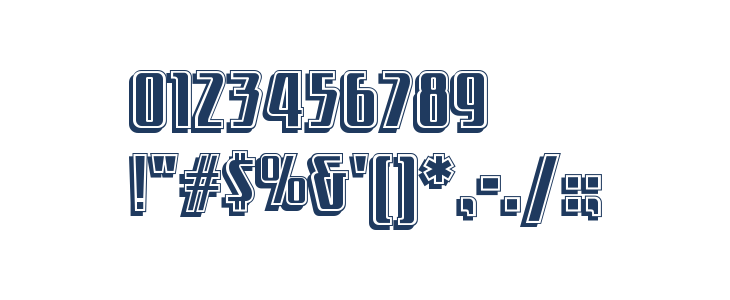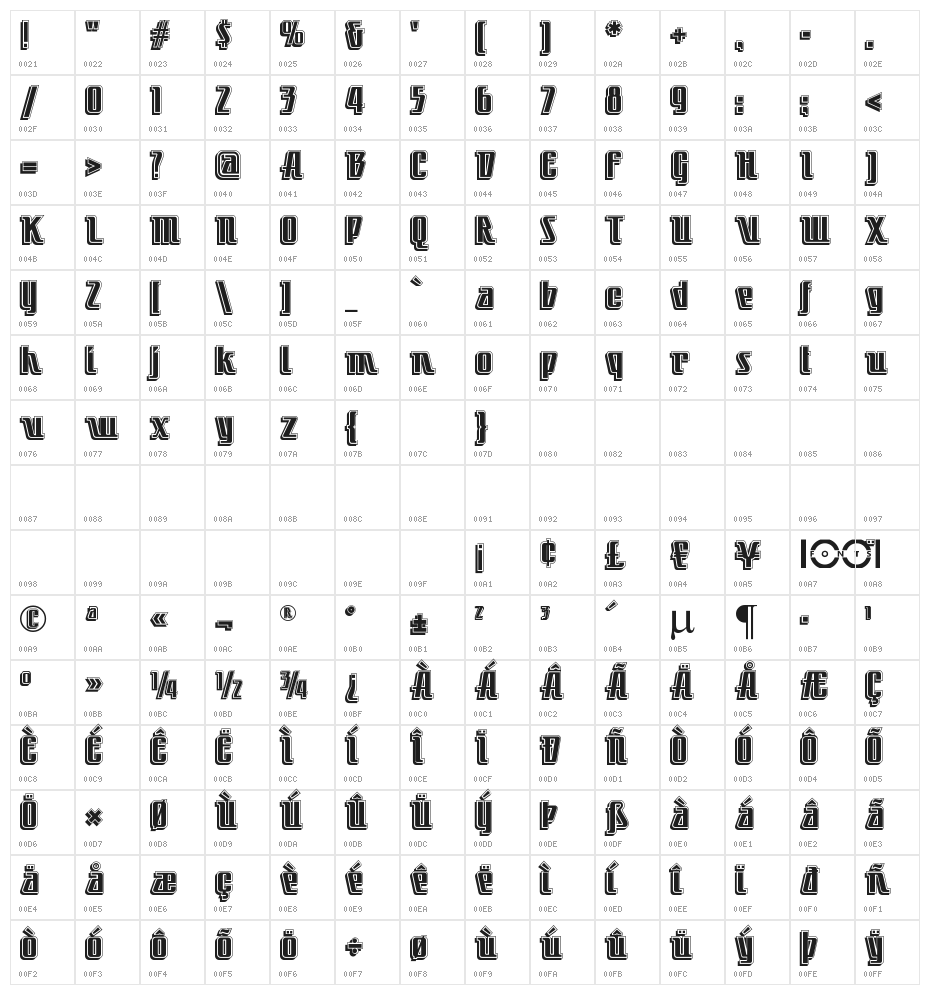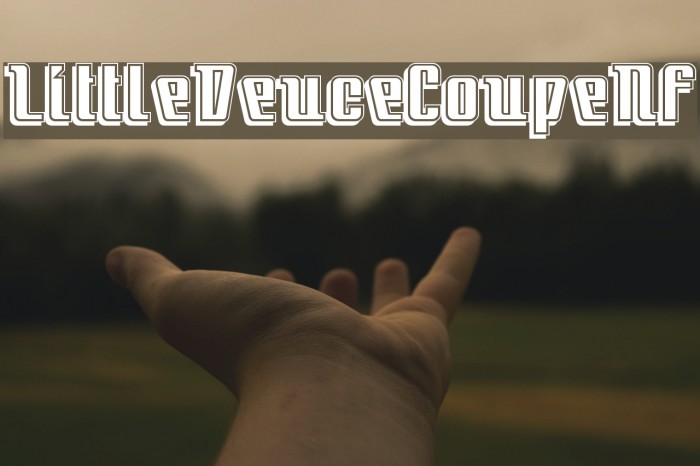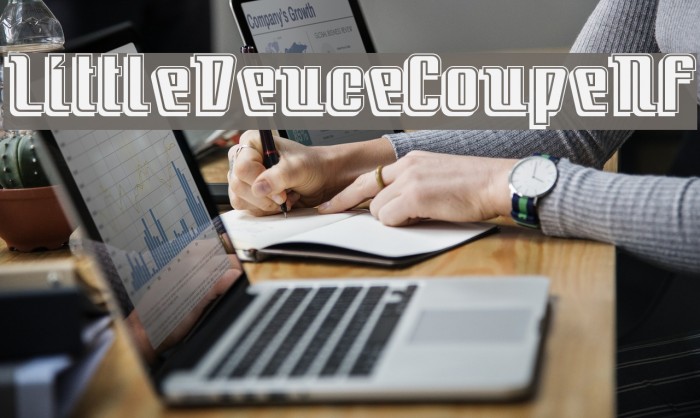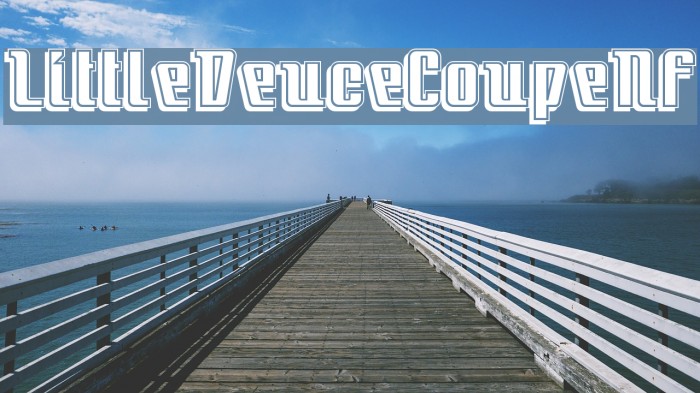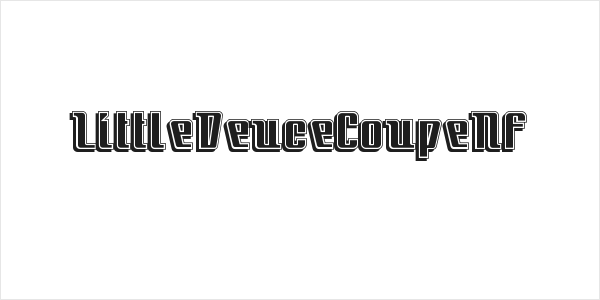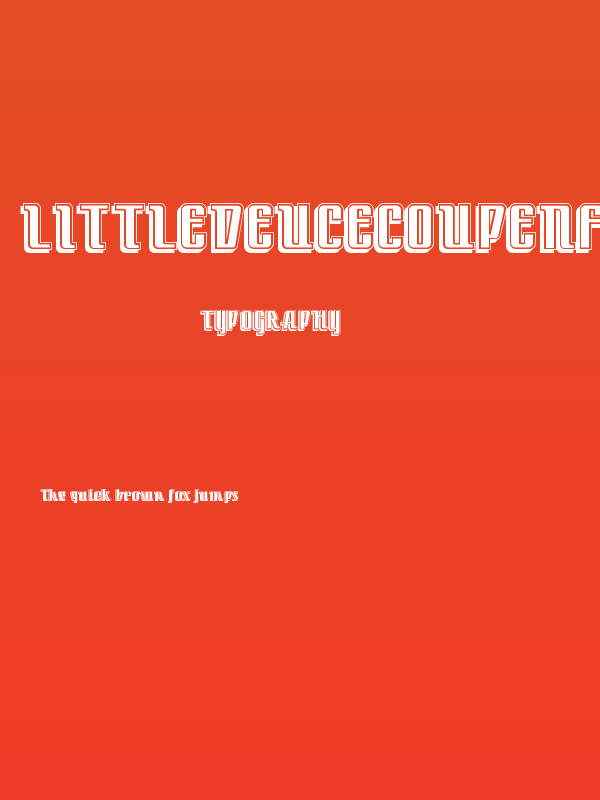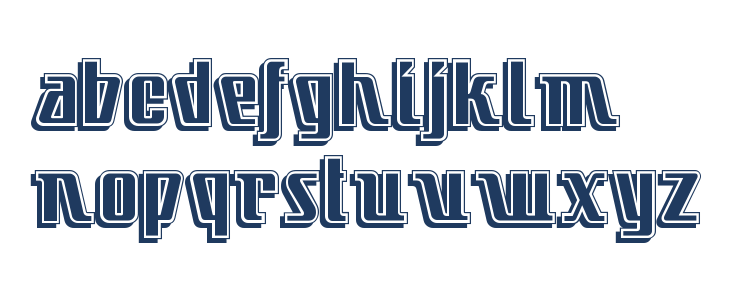
LittleDeuceCoupeNF Font
LittleDeuceCoupeNF Description
This font features a bold, decorative style with a strong presence. The characters are outlined, creating a striking contrast between the inner and outer edges. The uppercase and lowercase letters maintain a consistent design, with angular and geometric shapes that give it a modern yet retro feel. The numbers and special characters follow the same aesthetic, ensuring uniformity across all elements. The font's unique style makes it stand out, ideal for projects that require a bold statement.
Overall StyleModern, Retro
Proposed ProjectsIdeal for posters, logos, headlines, and any design needing a bold, eye-catching typeface.